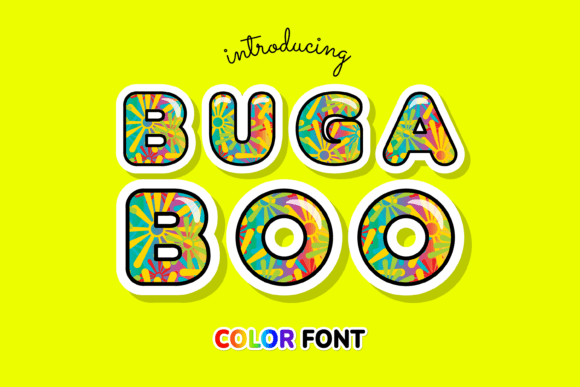
The Bugaboo Font: A Fun and Colorful Addition to Your Design Arsenal
I’ll never forget the time I was working on a project for a client who wanted a custom design that screamed fun and playfulness. I had been searching for the perfect font for hours, but nothing seemed quite right. That was when I stumbled upon the Bugaboo font, and it instantly became the star of the show. In this article, I’ll share my experience with this amazing font, its features, and how to make the most of it in your designs.
A Personal Review: What I Love About Bugaboo
Bugaboo is an incredibly cool and fun color font that has become a staple in my design toolkit. Here are some things I love about it:
- ✨ Vibrant colors: The font comes in a range of bright, fun colors that add a pop of personality to any design.
- ✅ Versatility: Whether you’re working on custom designs, DIY crafts, or just any creation that requires a lovely touch, Bugaboo is an amazing choice.
While Bugaboo is an amazing font, there are a few things to keep in mind:
- 🤔 Learning curve: If you’re new to color fonts or OpenType features, it may take some time to get familiar with the font’s capabilities.
The Story Behind Bugaboo
Bugaboo was designed by a team of creatives who wanted to create a font that would bring a smile to people’s faces. Inspired by the world of childhood wonder and play, Bugaboo is a font that embodies the spirit of imagination and creativity. Whether you’re a designer, crafter, or hobbyist, Bugaboo is the perfect addition to your design toolkit.